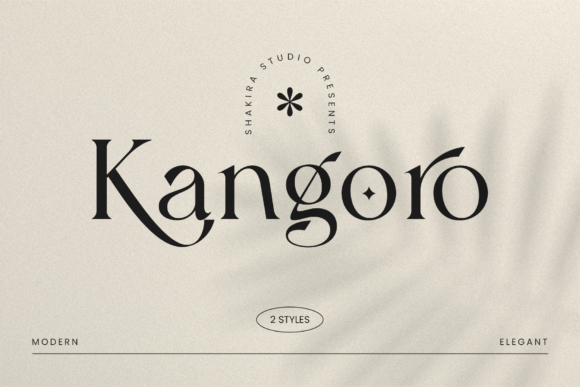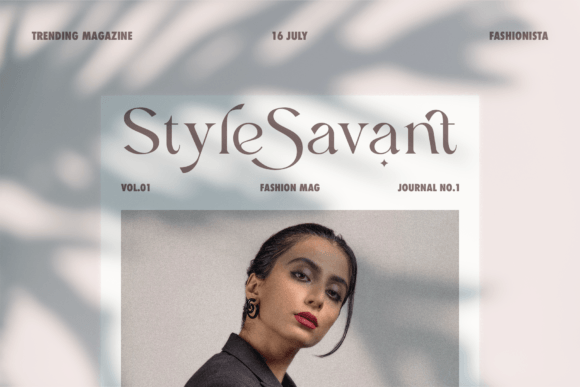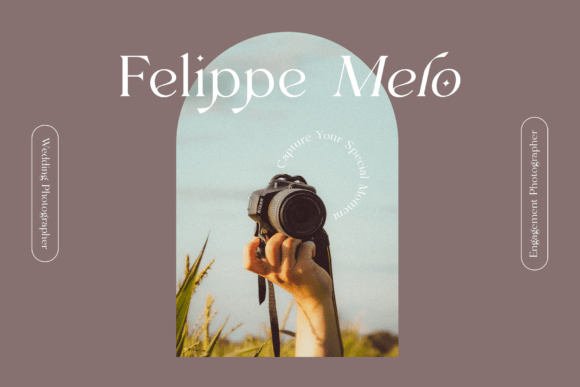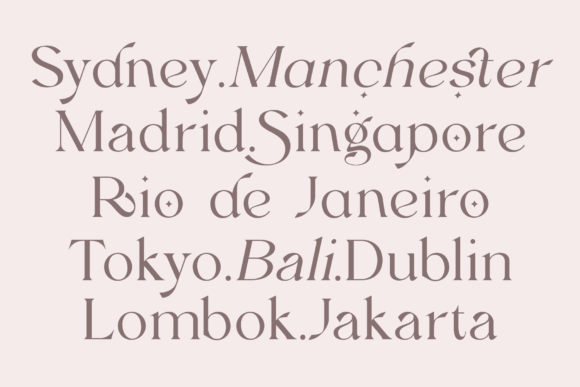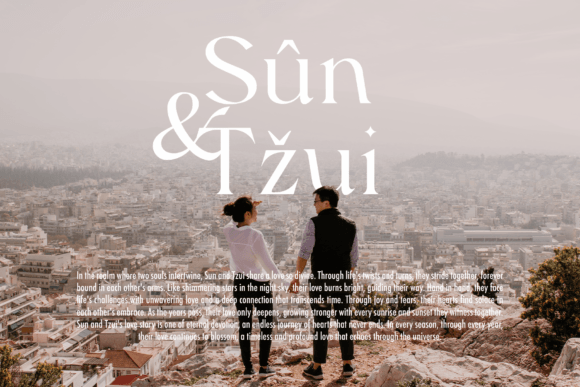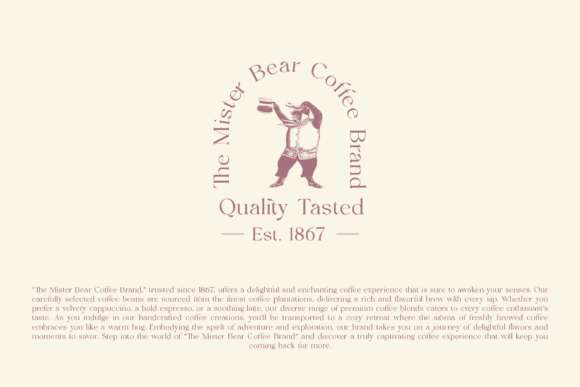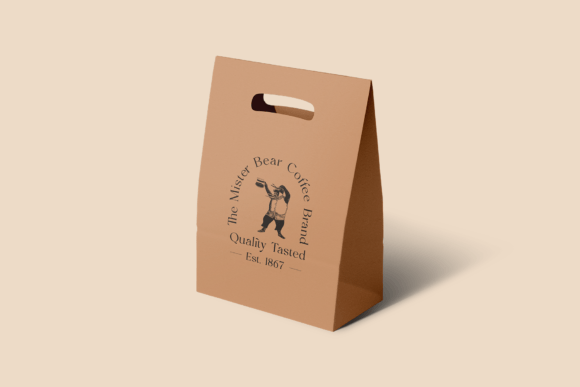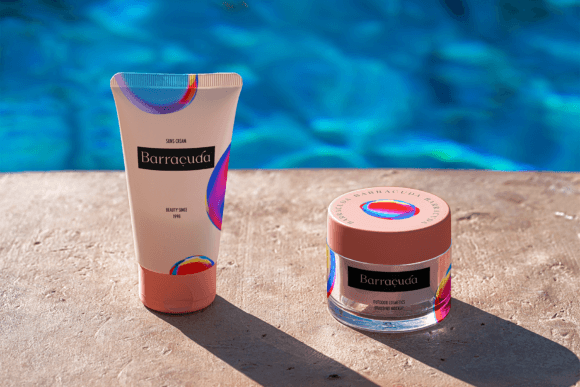
Kangoro Font
Introducing Kangoro, an exquisite modern luxury serif font that embodies timeless elegance and aesthetic appeal. This typeface is designed to elevate your designs with a touch of sophistication, making it the perfect choice for projects that require a blend of contemporary luxury and classic charm.